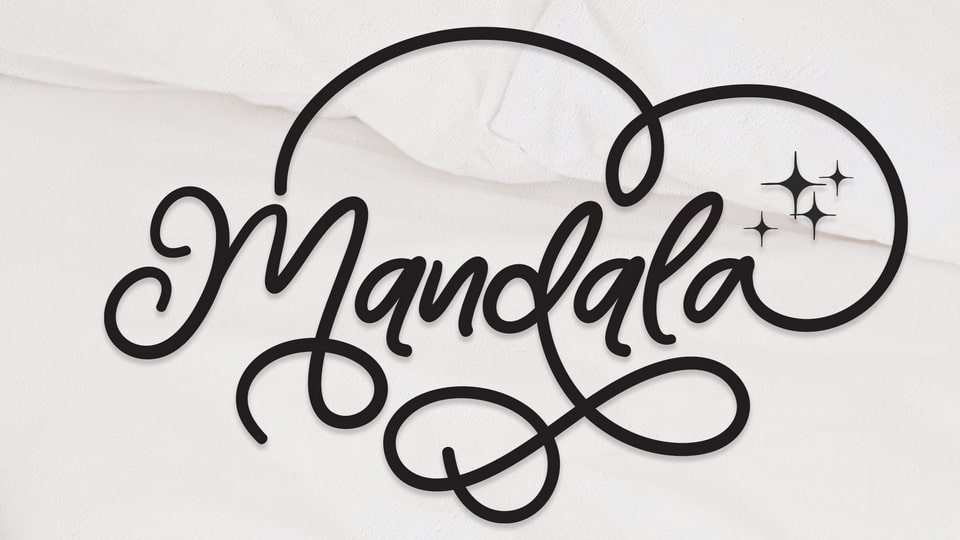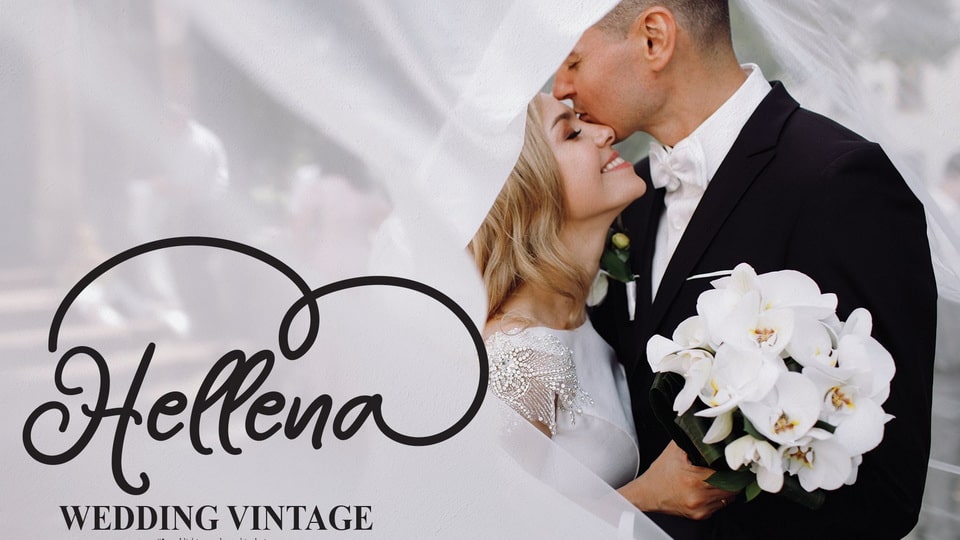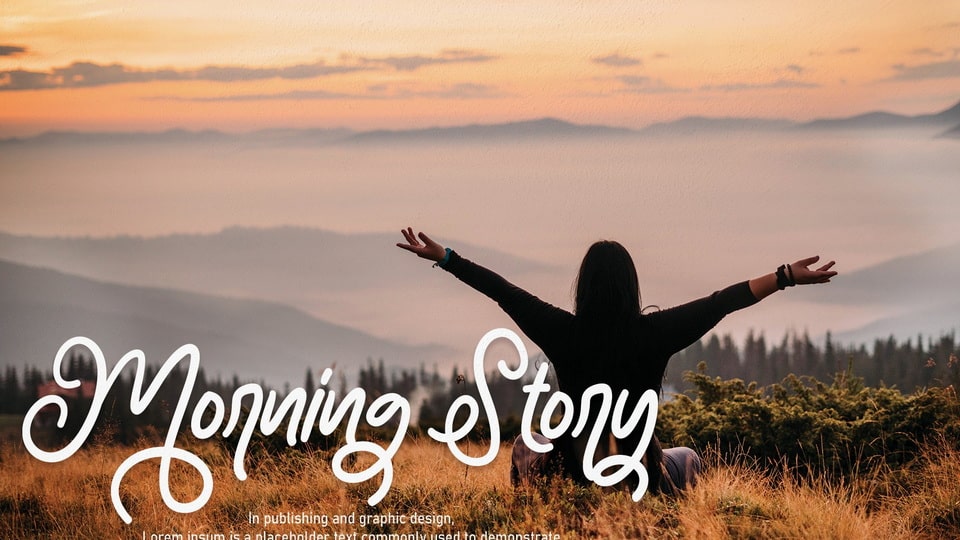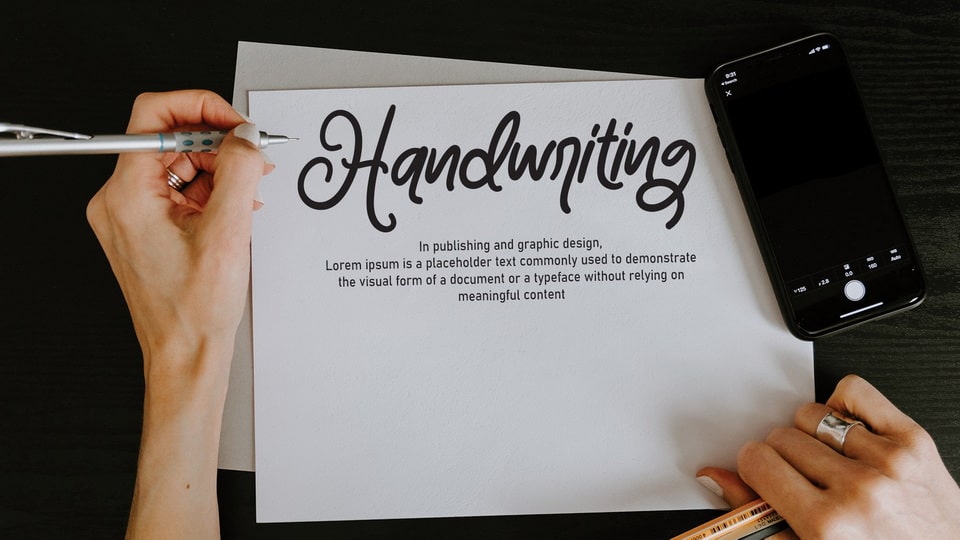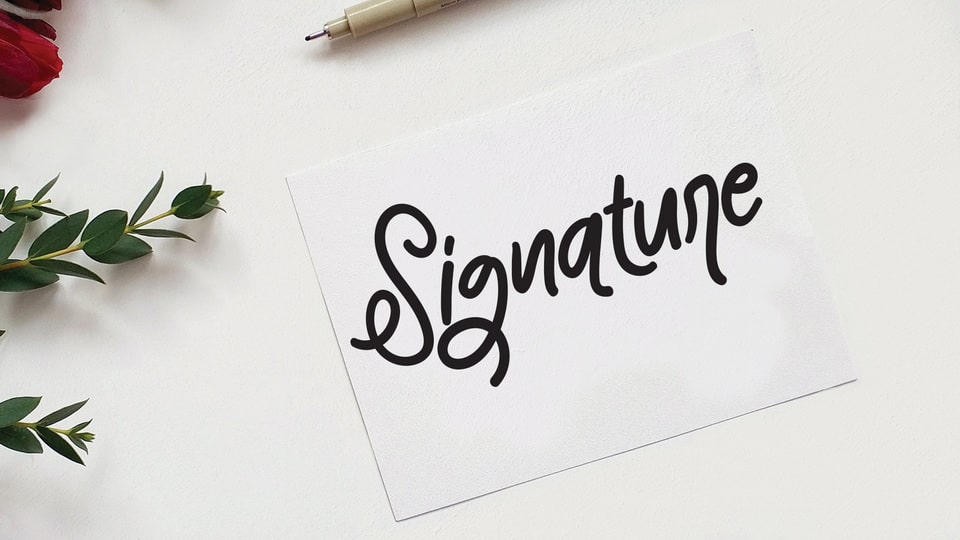
Mandala is a simple and smooth handwritten script font. Modern and elegant, this typeface is made of beautiful creative strokes.
This font is perfect for your creative ideas, both formal and informal. It has a modern style with a touch of creative ideas that is very suitable to be applied anywhere that requires creative ideas such as invitation cards, letterheads, website logos, social media, banners, advertisements, brochures, packaging products, leather products, and any product that requires writing.